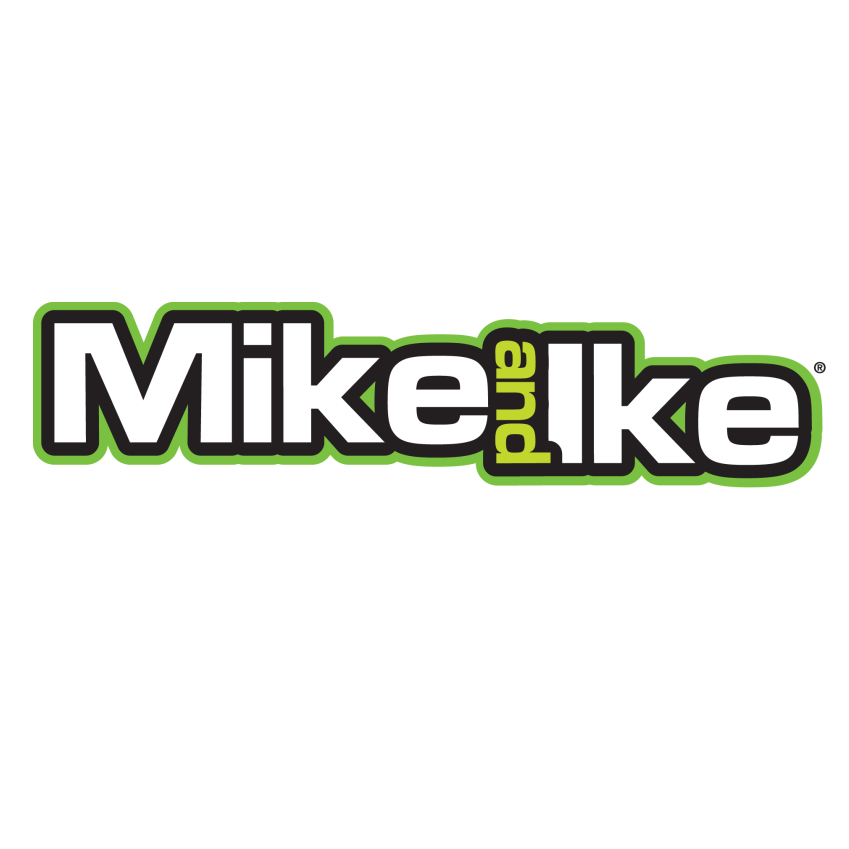
Mike and Ike Font
Fonts in UseMike and Ike is a brand of fruit-flavored chewy candies, made in the United States. The candies were first introduced in 1940 and are popular among candy lovers of all ages.
Mike and Ike's logo employs Eurostile Bold Extended, a geometric sans-serif typeface crafted by Aldo Novarese in 1962 for the Italian foundry, Nebiolo, based in Turin. You can learn more about the font here.